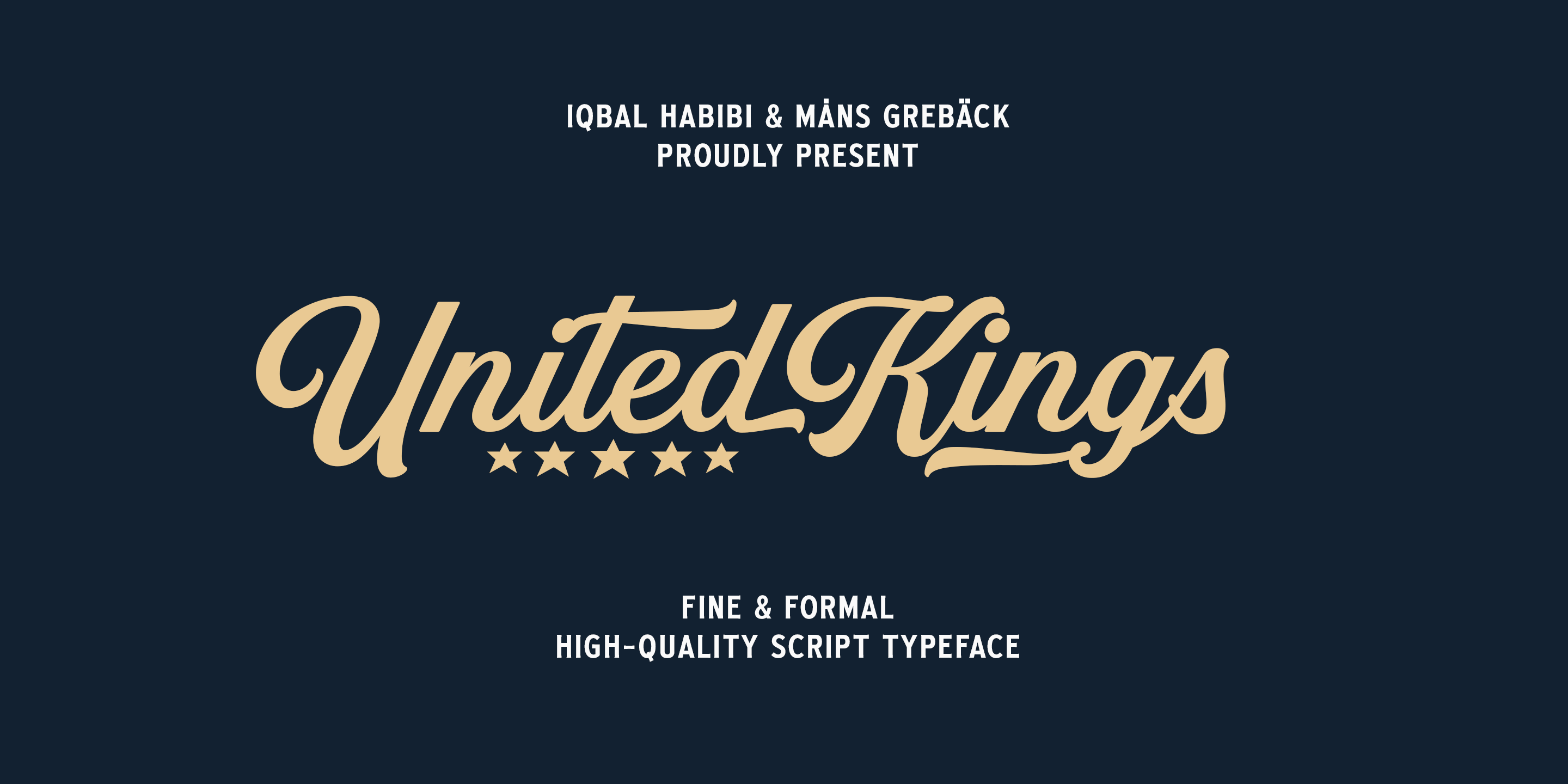
United Kings Font is a distinctive and impactful typeface, often characterized by its strong, authoritative, and sometimes vintage-inspired presence. Imagine it as the bold headline for a rugged outdoor brand's advertising campaign, providing a sense of heritage and strength to a craft beverage label, or adding a powerful, no-nonsense feel to a sports team's merchandise. Its unique styling makes it an excellent choice for display purposes, such as posters, event promotions, album covers, and gaming interfaces where a strong, memorable visual identity is crucial. It’s particularly effective in projects that aim to convey tradition, power, or a bespoke artisan quality, making a statement in both digital and print media.
What makes United Kings Font truly exciting is its ability to evoke a specific mood or era while maintaining a contemporary appeal. Depending on its specific design, it can blend classic serifs with modern refinements, or bold sans-serif structures with unique decorative elements. This fusion results in a typeface that is both timeless and fresh, allowing designers to create branding and communication that stands out. Its strong personality makes it a powerful tool for visual storytelling, ensuring that any message conveyed with United Kings Font is both impactful and memorable. Designers appreciate its distinctive character and the immediate impression it creates.
The United Kings Font family typically offers a focused yet effective range of styles, often including different weights or variations that enhance its versatility. You might find a standard Regular weight alongside a more impactful Bold or even a textured, distressed version that adds to its vintage charm. Some iterations might also include stylistic alternates or ligatures, further expanding its creative applications for logos and prominent display text. While it might not boast hundreds of individual styles like a super-family, the existing variations are usually designed to maximize its impact and distinctiveness, ensuring that United Kings Font Free Download provides a unique and powerful addition to your typographic toolkit.